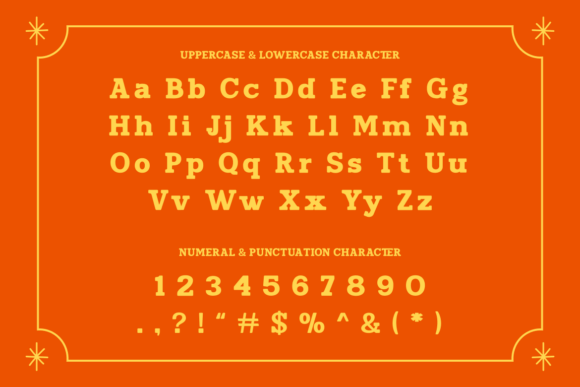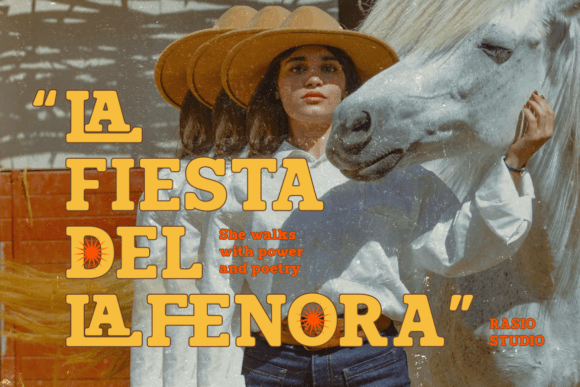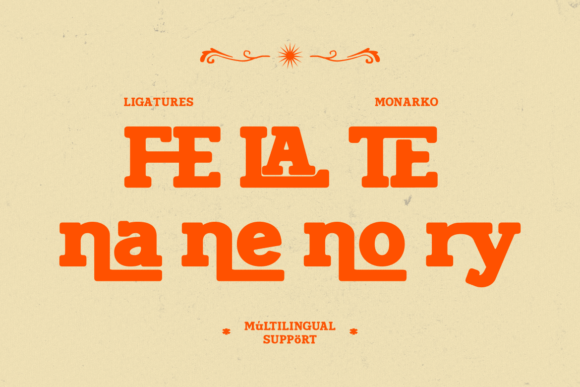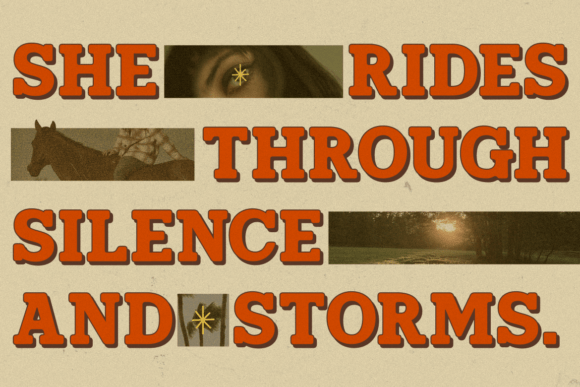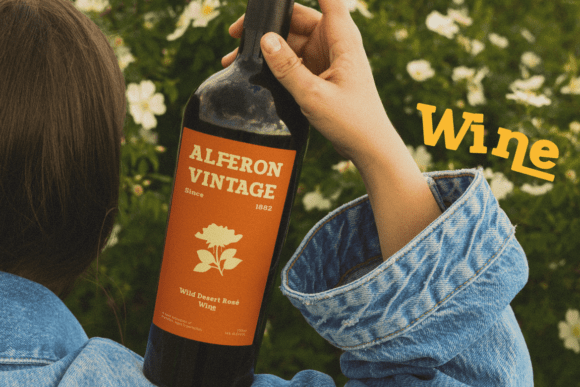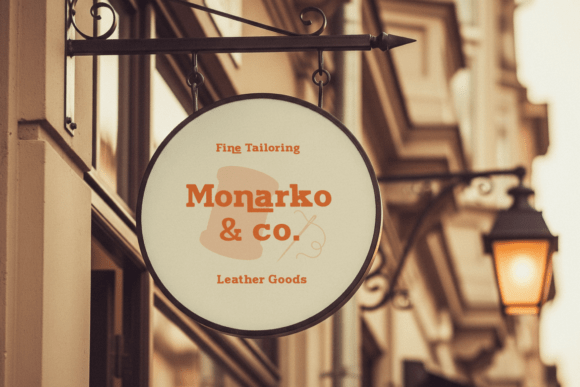
Introduction to Monarko Font
As a designer, have you ever been stuck on a project and needed that perfect font to bring it to life? You’ve spent hours browsing design resources, searching for that one high-quality font that screams “creativity.” Well, we’ve got you covered! Introducing Monarko Font, a bold Western-inspired slab serif typeface that’s sure to add a touch of vintage charm to your next project.
Imagine you’re working on a creative project and you need a font that’s rugged, yet refined. You want something that will transport your audience to the Wild West, but still maintains a level of sophistication. That’s where Monarko Font comes in – a free download that’s perfect for designers who want to add a little extra oomph to their designs. With its transparent background and high-quality design, Monarko Font is the perfect addition to any design project.
Key Features of Monarko Font
• Monarko Font includes 6 styles, each with a unique characteristic to enhance your design
• Perfect for designers seeking a stylish and modern font for their next creative project
Honest Review: Monarko Font
I recently came across the Monarko Font and was excited to give it a try. As a designer, I’m always on the lookout for high-quality design resources to elevate my creative projects. The Monarko Font did not disappoint.
• ✨ High-quality design: The Monarko Font is well-designed and has a unique, modern aesthetic that would be perfect for a variety of creative projects.
• ⚠️ Limited character set: The Monarko Font only includes a limited character set, which may not be suitable for designers who need a font with a wide range of characters.
• ⚠️ Not suitable for body text: While the Monarko Font is perfect for headlines and titles, it may not be the best choice for body text due to its unique style.
Overall, I’m impressed with the Monarko Font and would definitely recommend it for designers who are looking for a high-quality, modern font to use in their creative projects.
Tips for Getting the Most Out of Monarko Font
Experiment with different font sizes, colors, and combinations to achieve unique and eye-catching designs. Use the transparent background to create layered and textured effects.
The Monarko Font is perfect for a wide range of creative projects, including graphic design, digital art, and typography-based designs. Use it to create logos, posters, business cards, and more.